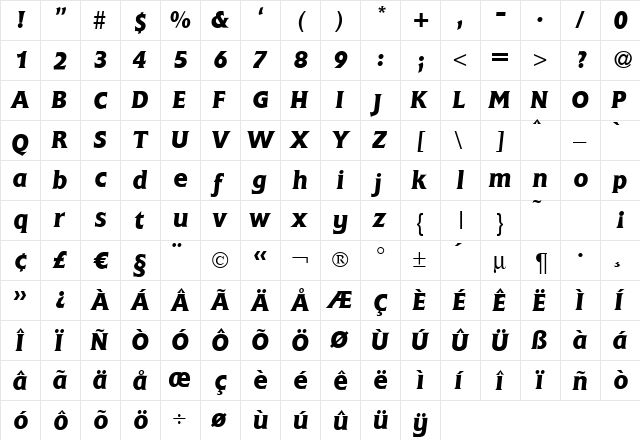
Fleming BoldItalic
Design Context for Fleming Typeface
Fleming takes a measured approach to typography — its balanced proportions and neutral character make it a reliable workhorse for both digital and print work. The slanted form adds forward momentum and visual energy. The heavy weight commands attention and anchors typographic hierarchies.
Pro Tip: Use Fleming for emphasis, pull quotes, and subheadings where its slanted energy can add rhythm to the layout.